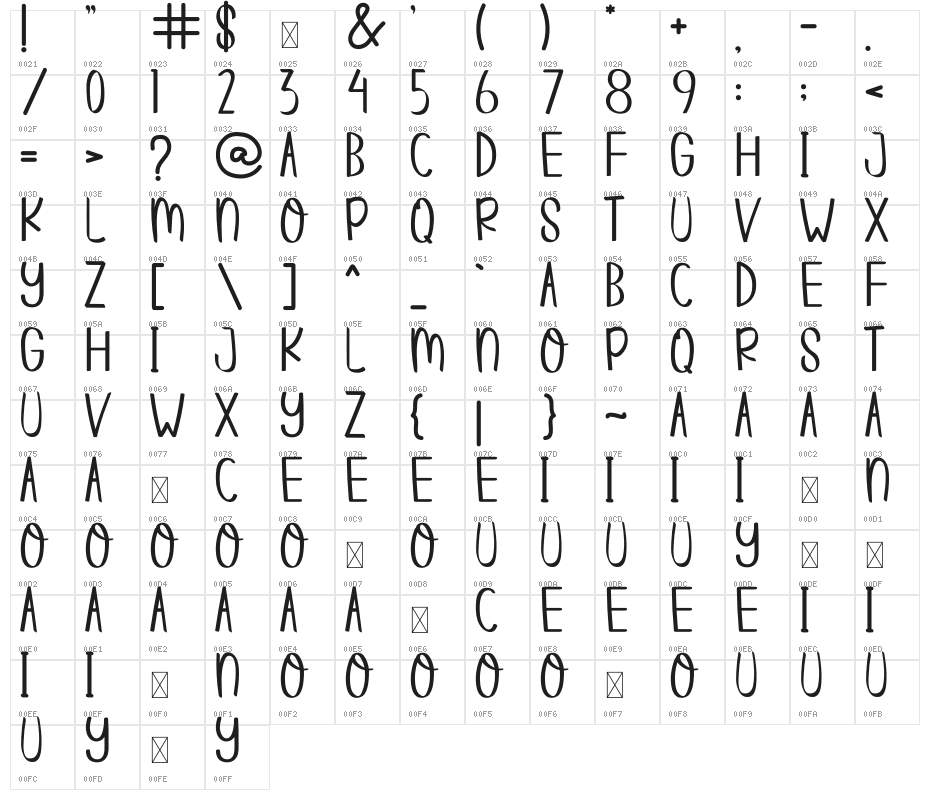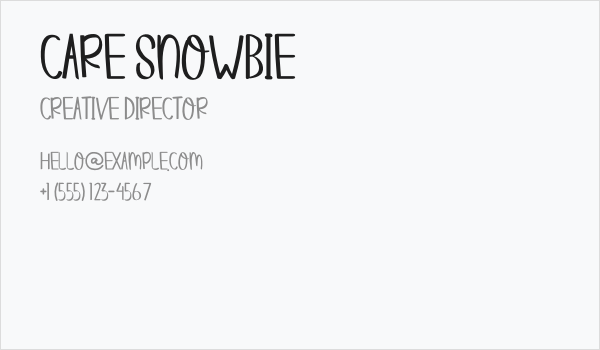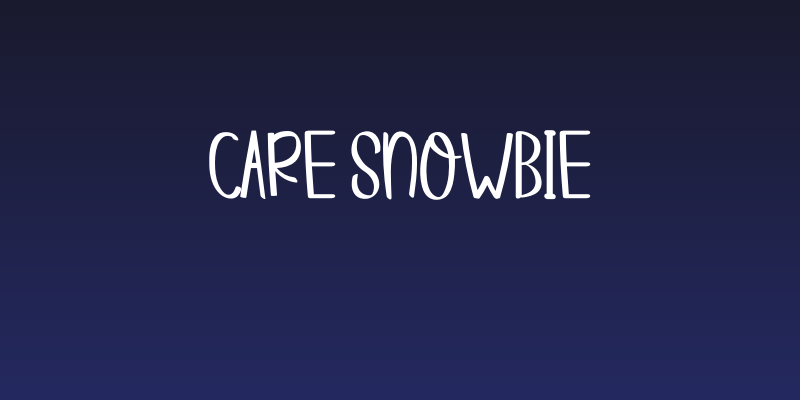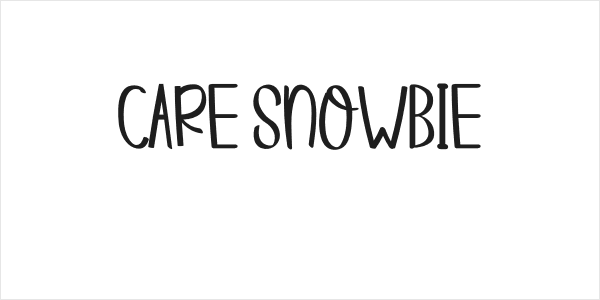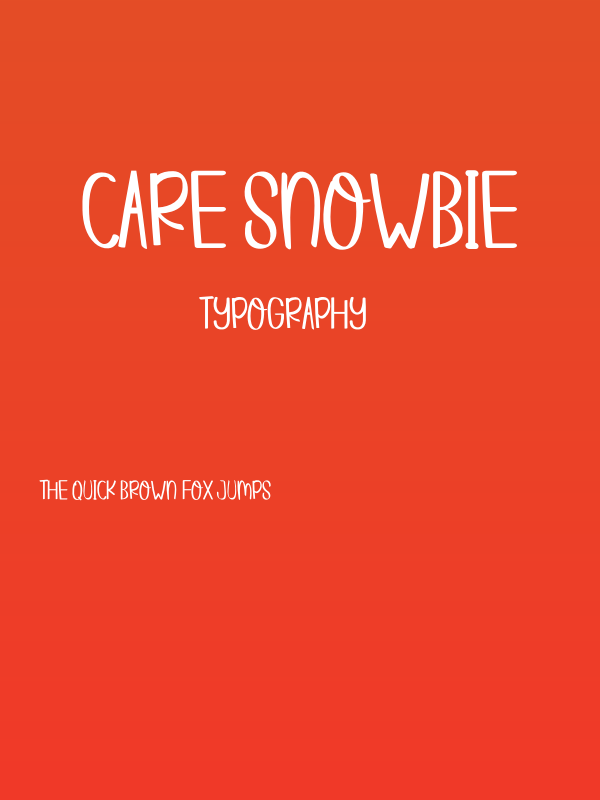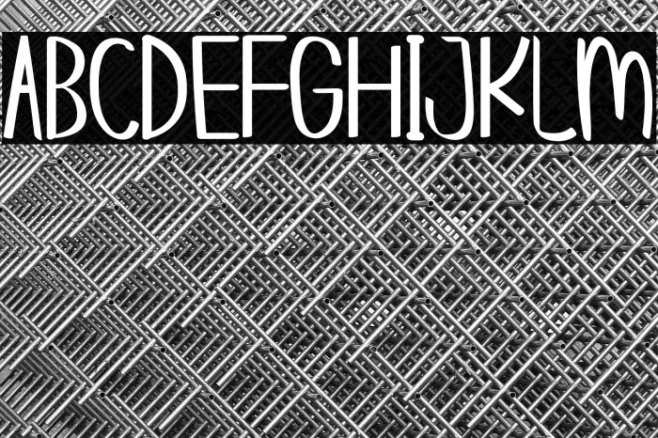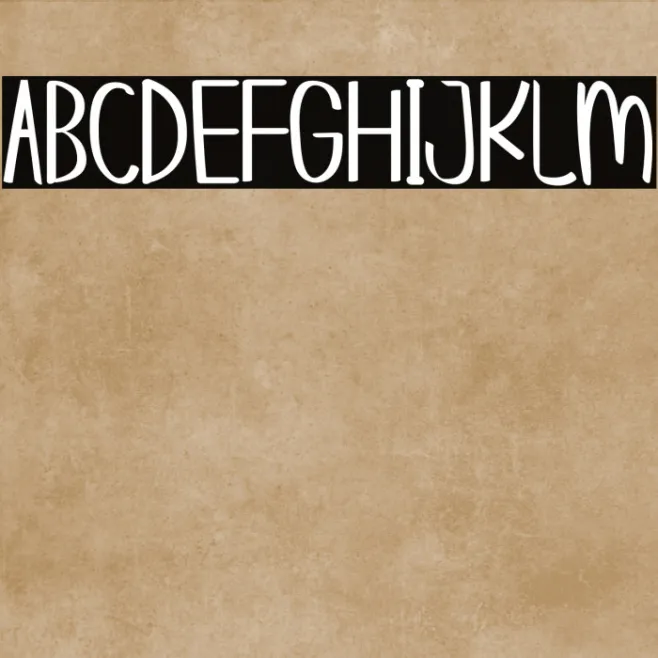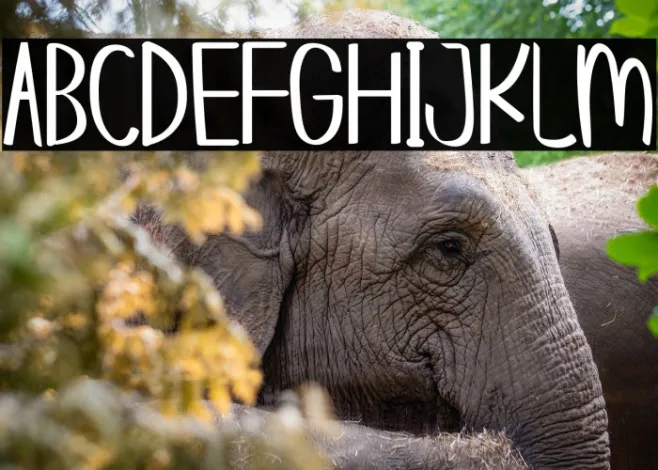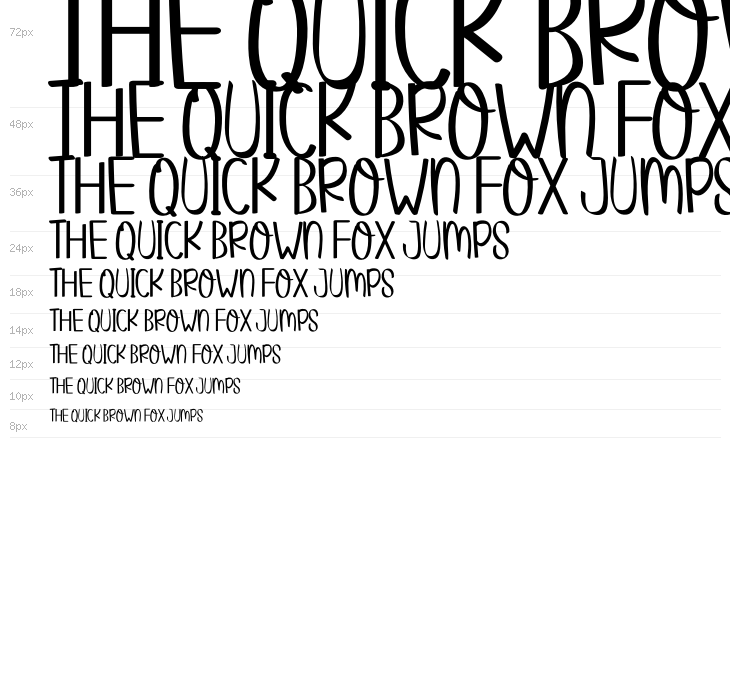
CARE SNOWBIE Font
CARE SNOWBIE Description
This font features a playful and whimsical style, characterized by its tall, narrow letters with rounded edges. The uppercase and lowercase letters maintain a consistent height, giving it a uniform appearance. The strokes are smooth and slightly irregular, adding a hand-drawn feel to the overall design. The numbers and special characters follow the same aesthetic, ensuring a cohesive look across all elements. This font's unique style makes it stand out, offering a blend of modern and casual vibes.
| Overall Style | Playful, Casual |
| Use Case | Logos, Posters, Greeting Cards |
| Proposed Projects | Ideal for children's books, playful branding, greeting cards, and creative posters. |